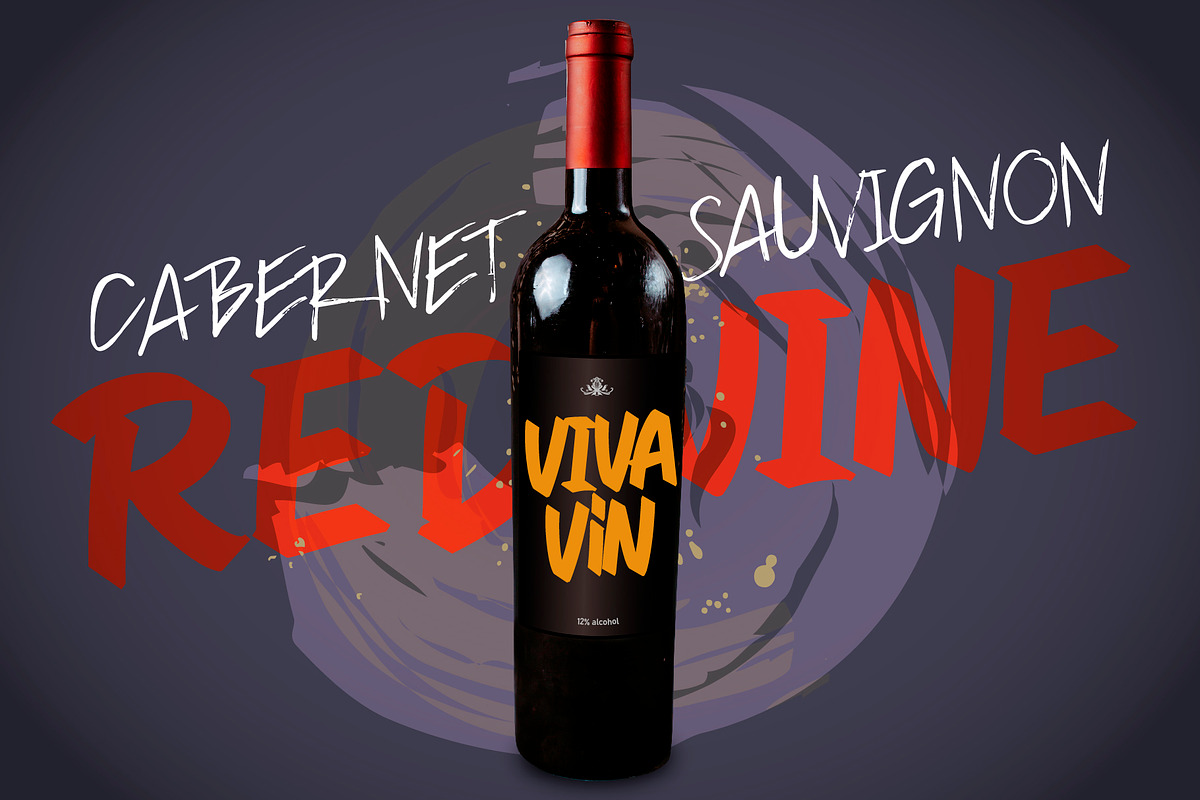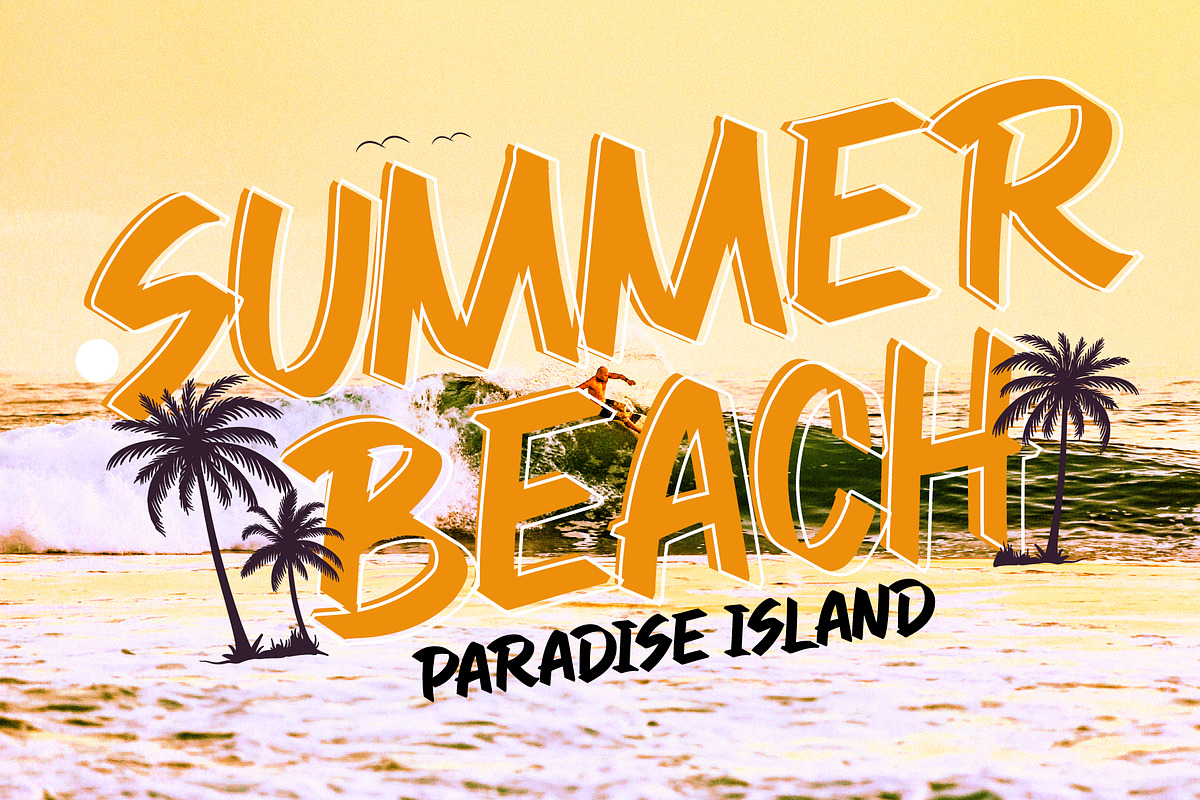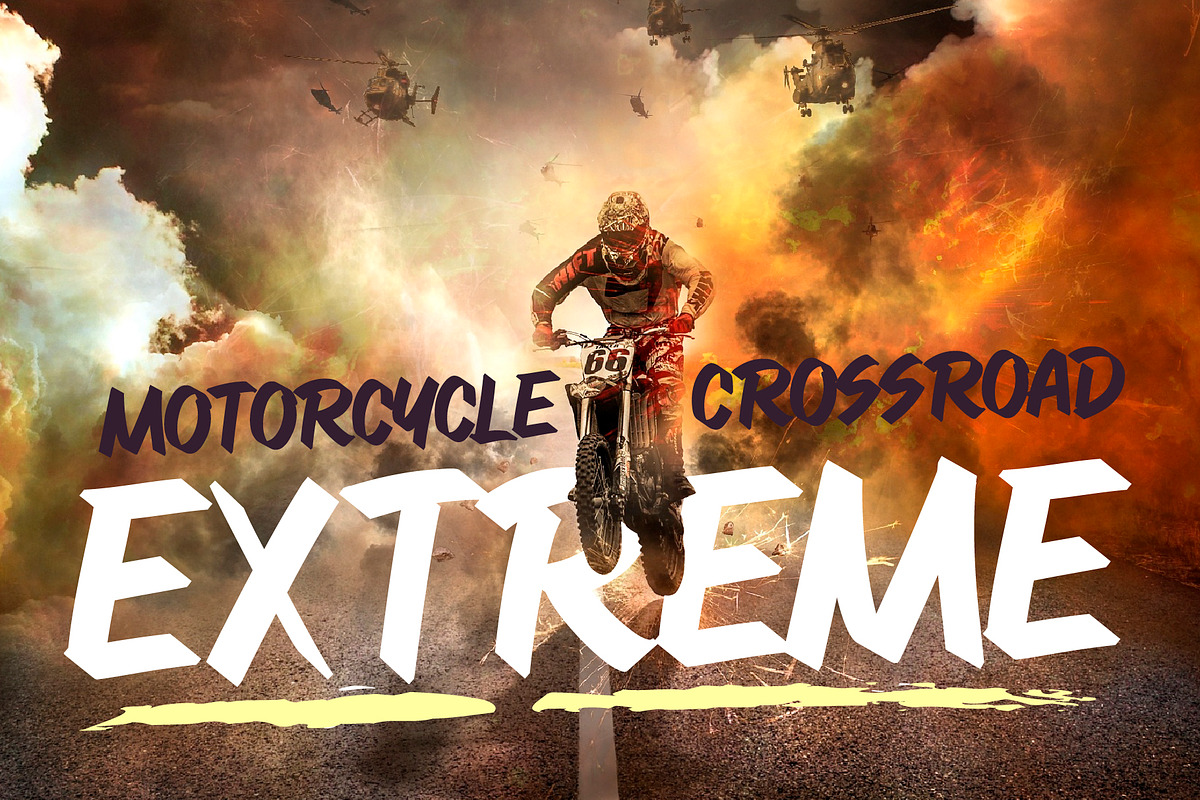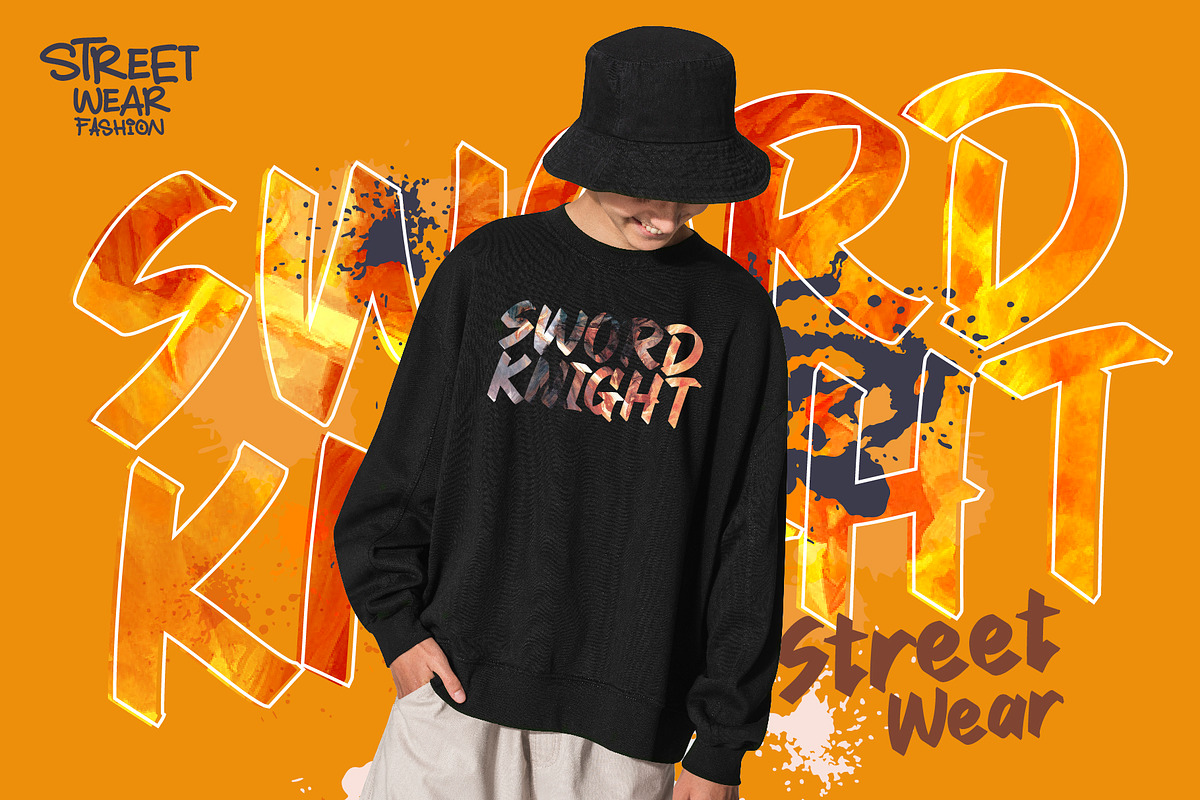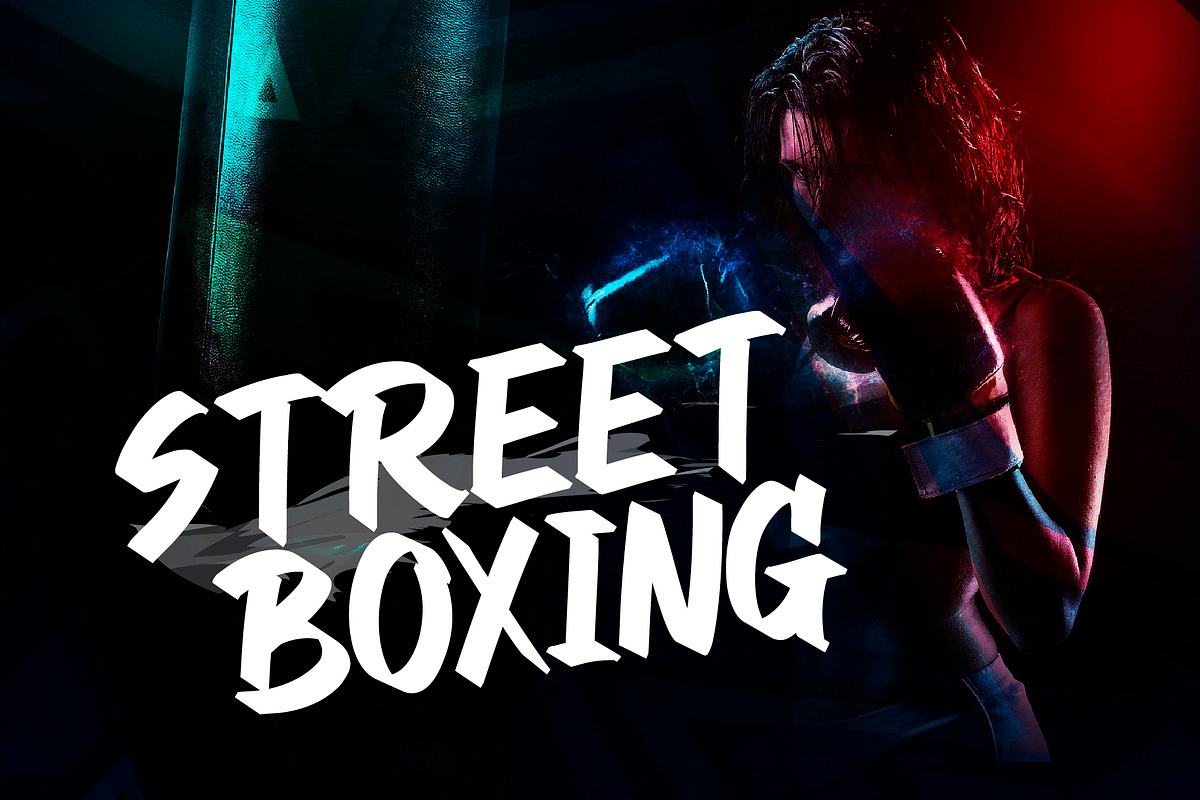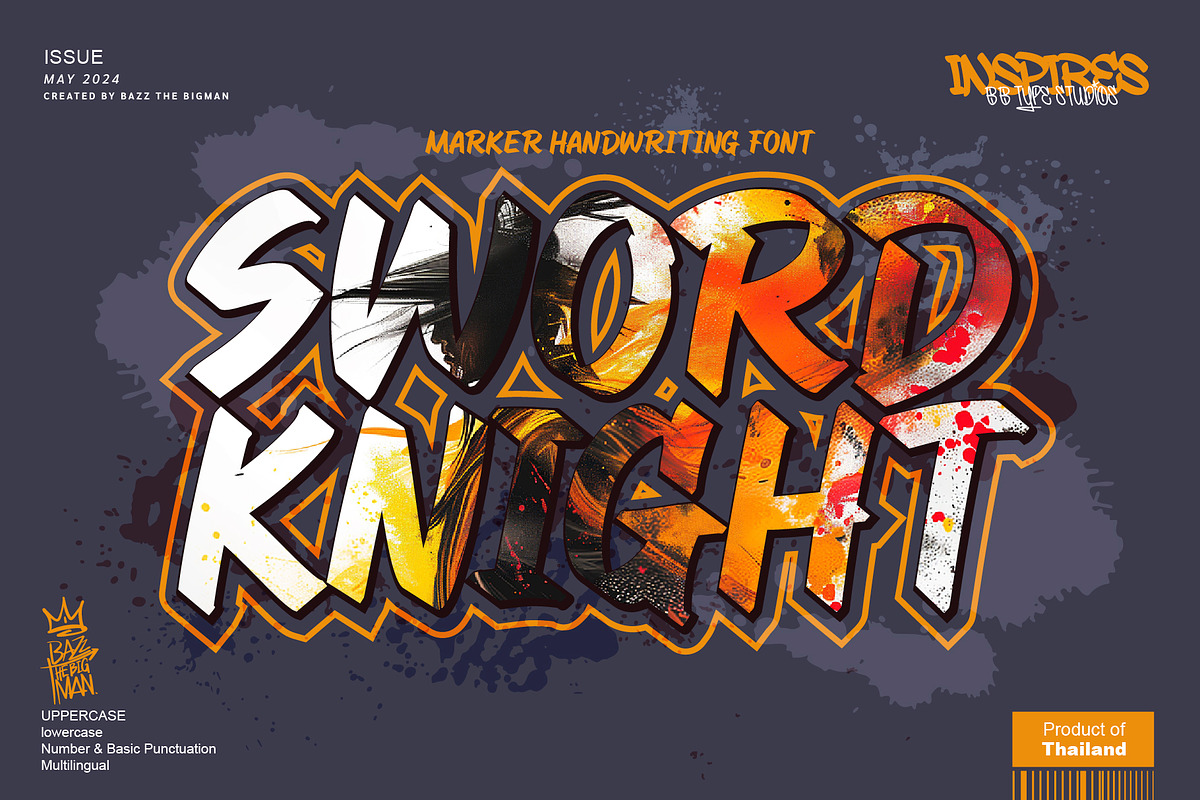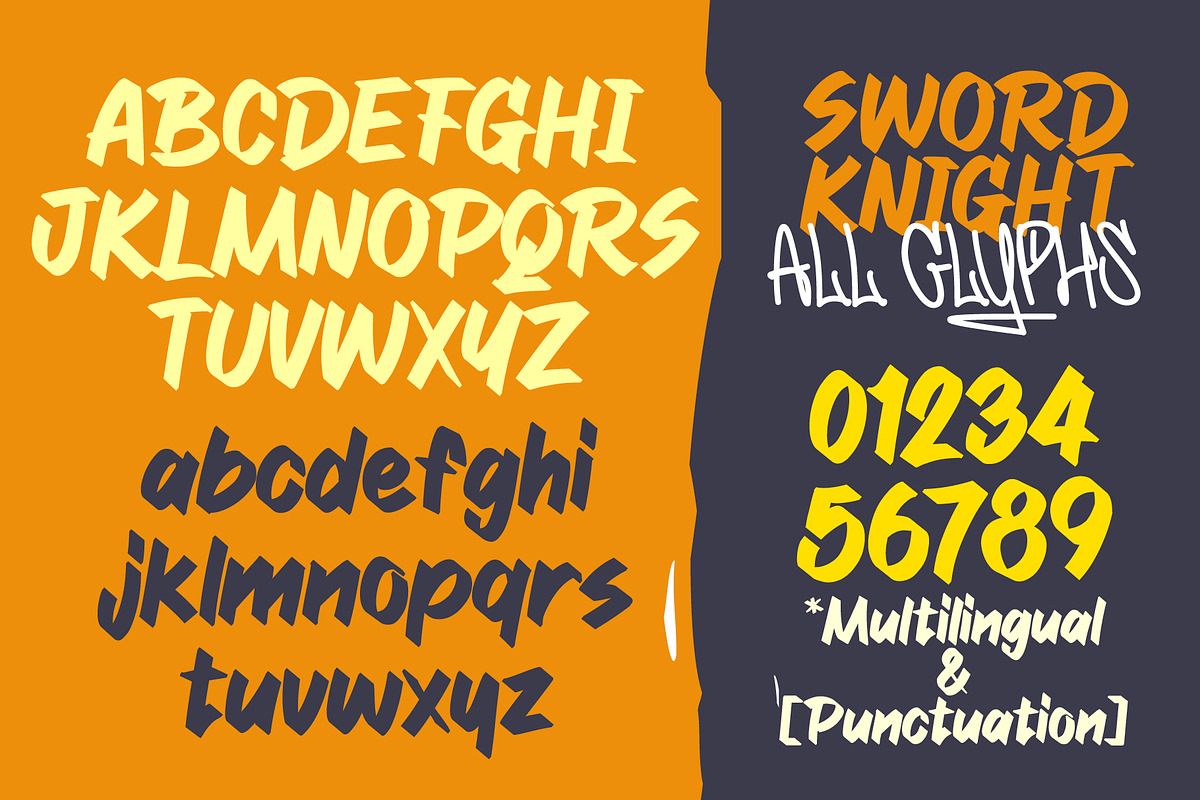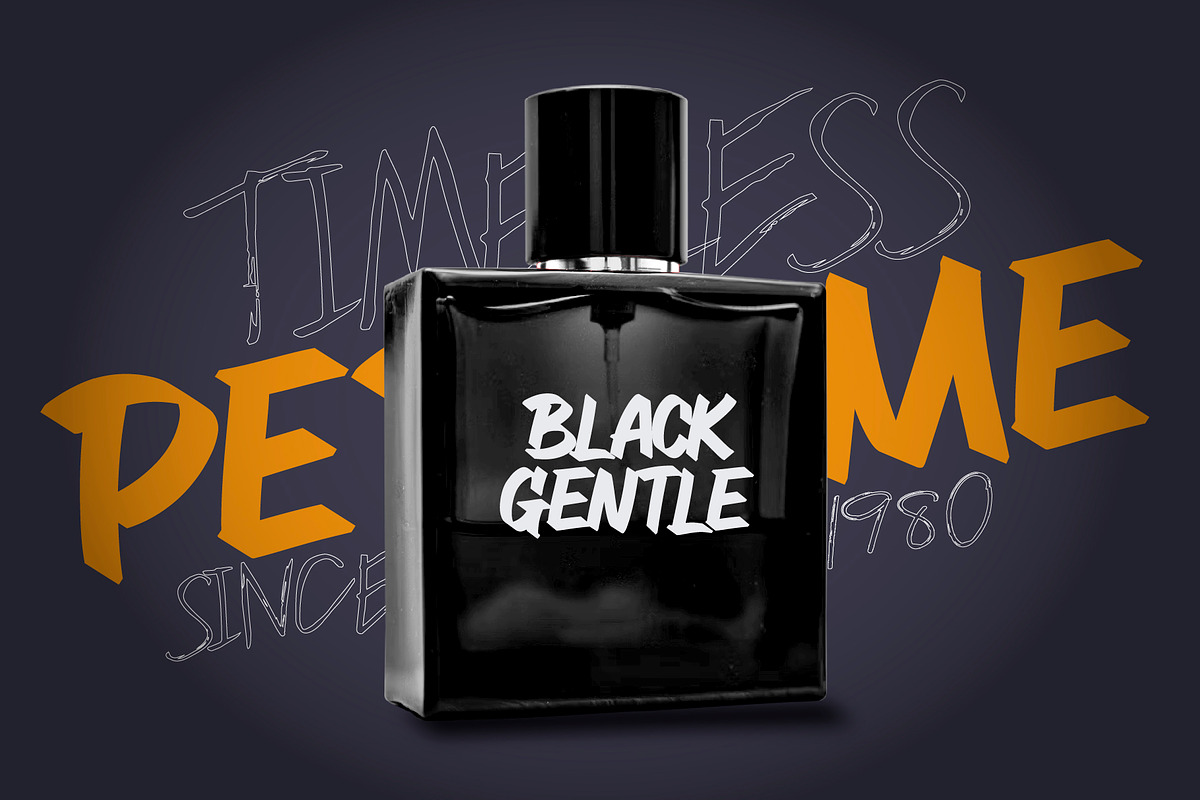
Sword Knight
Unleash your designs with a splash of urban character using Sword Knight. This phenomenal graffiti-style marker brush font packs a punch of street art charisma waiting to infuse your work with edgy dynamism. Perfectly tailoring to designs that yearn for that extra flare, Sword Knight effortlessly harmonizes with t-shirt designs, sportswear aesthetics, captivating logos, compelling advertisements, and stylish clothing ensembles. Let Sword Knight be the secret weapon in your design arsenal, making your work a unique standout in the visual arts scene.